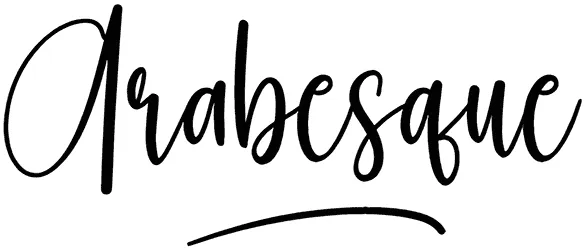
Arabesque Font
Using realistic lettering is going to be a nice first step to leave a nice impression, and this handwritten font is an apt selection. Arabesque has delicate lines and beautiful swashes, which can engage lots of viewers. From an invitation card to a book cover, this can satisfy your needs.
the latest style letters are perfect for wall displays, wedding invitations, social media post logos,
advertisements, product packaging, product designs, labels, photography, watermarks, invitations, stationery,
and any project that requires taste handwriting.